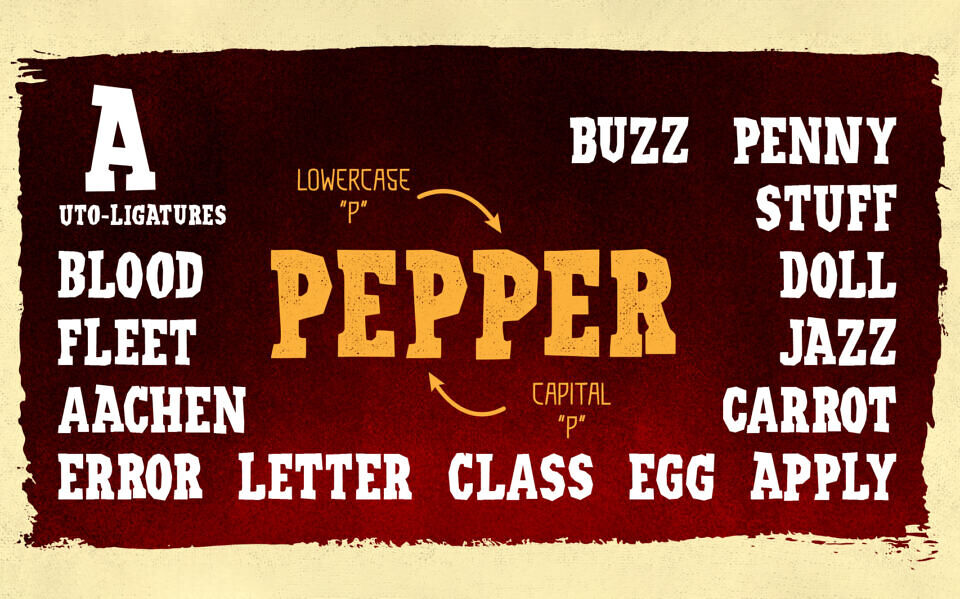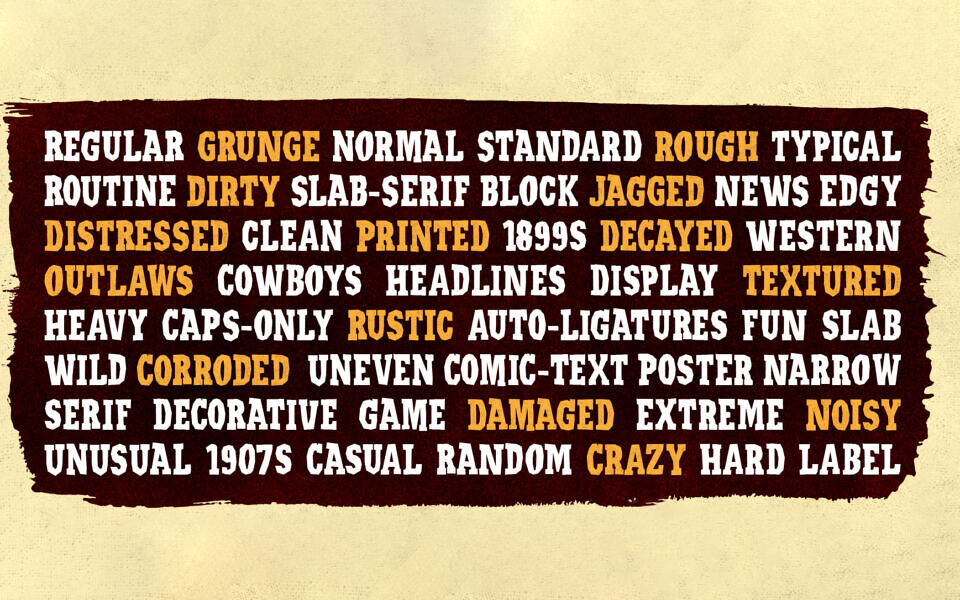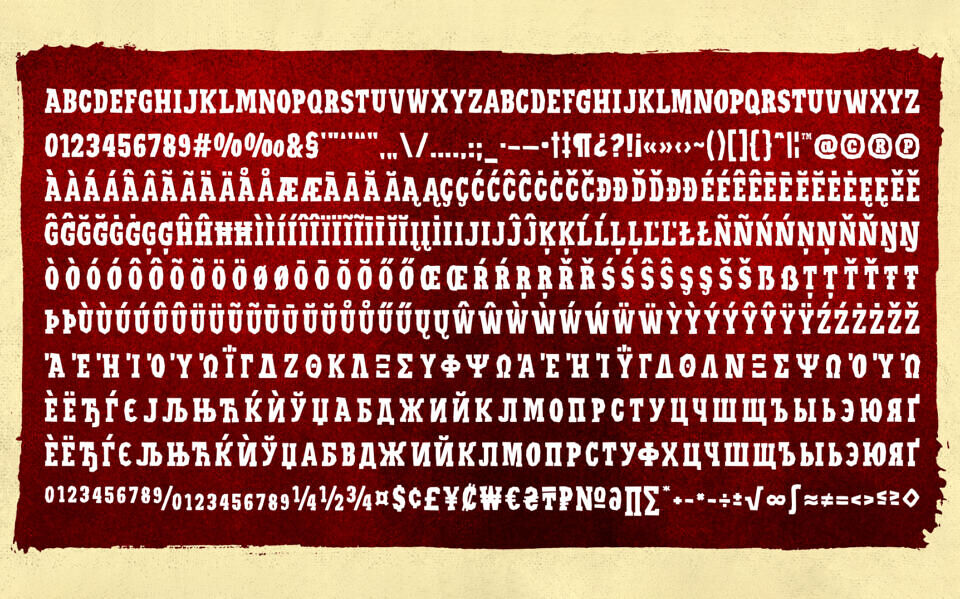
Frontier Pursuits Font
Frontier Pursuits is a rugged, vintage display typeface heavily inspired by the untamed spirit of the American Wild West and classic frontier typography. This typeface is based on a logo from the game Red Dead Online. Featuring bold, weathered letterforms with distinct slab-like serifs, it perfectly captures an authentic, hand-crafted aesthetic.
Frontier Pursuits is ideal for thematic branding, poster layouts, packaging design, and editorial headlines. Its robust character adds an instantly recognizable grit and nostalgic charm to any creative project seeking a bold, historic western edge.
Two styles are included: Regular and Rugged.